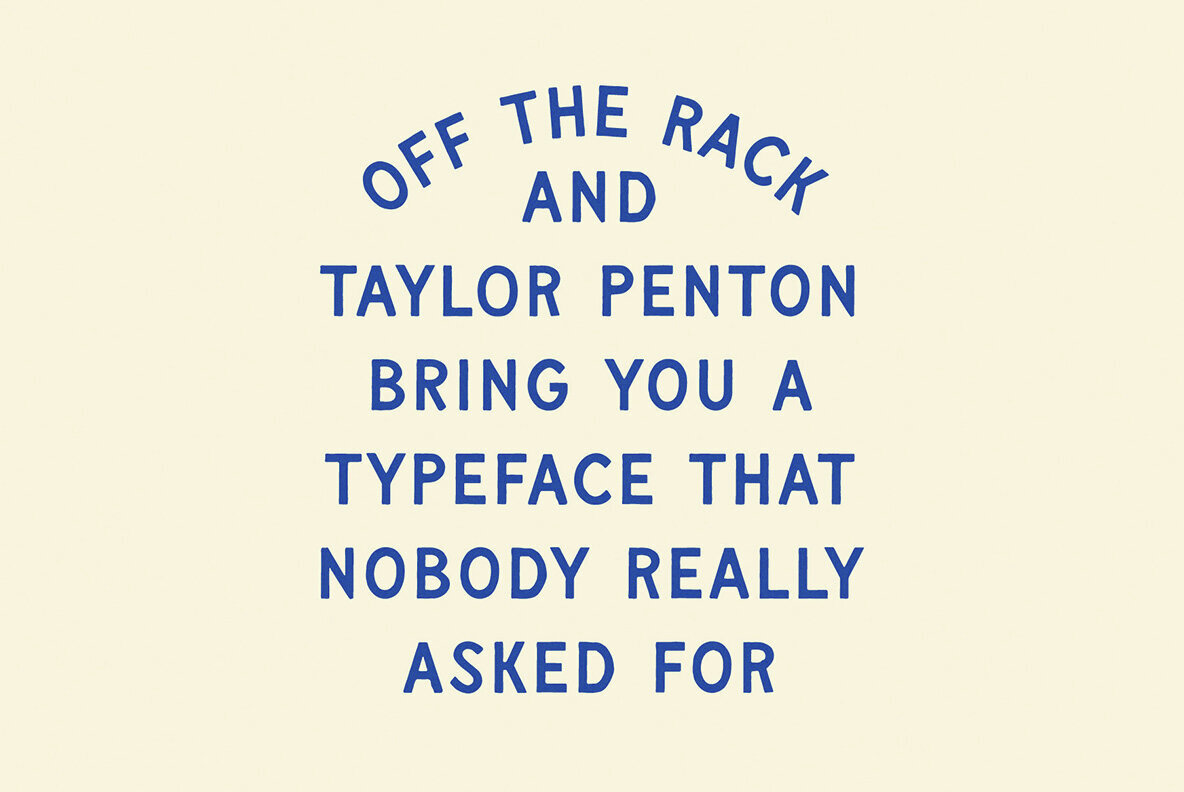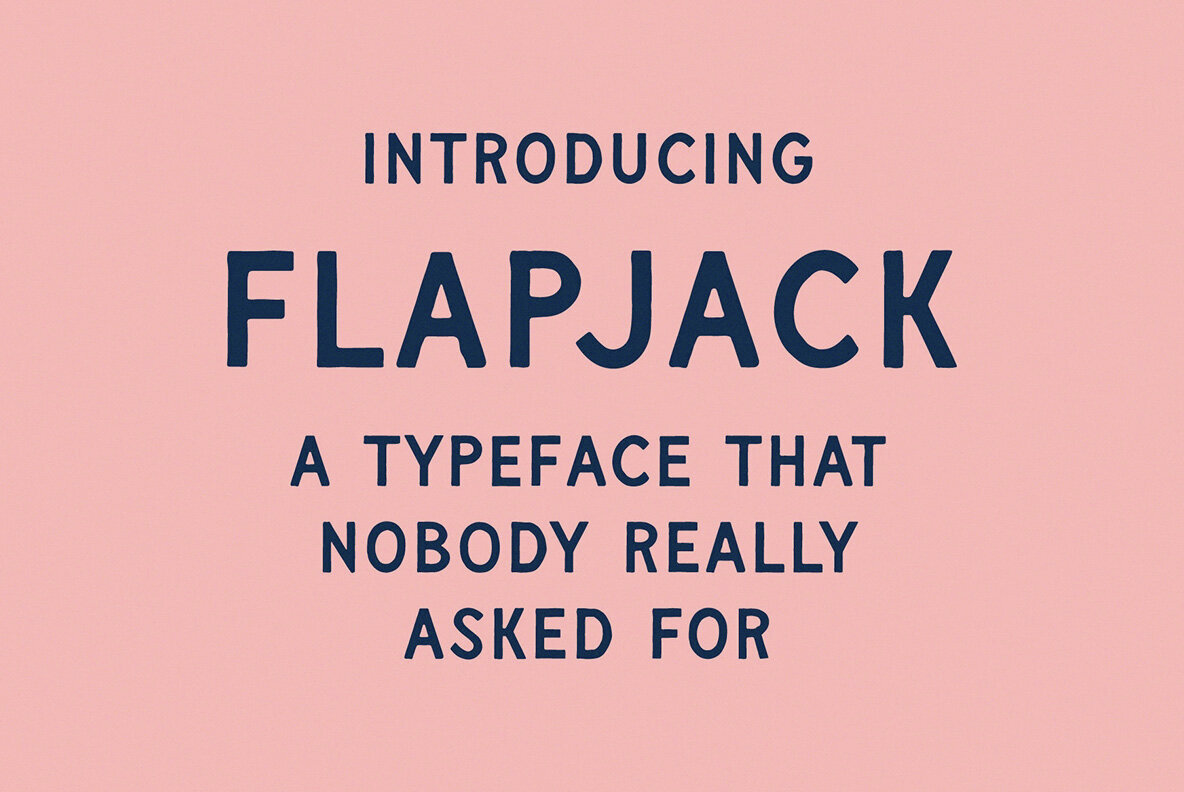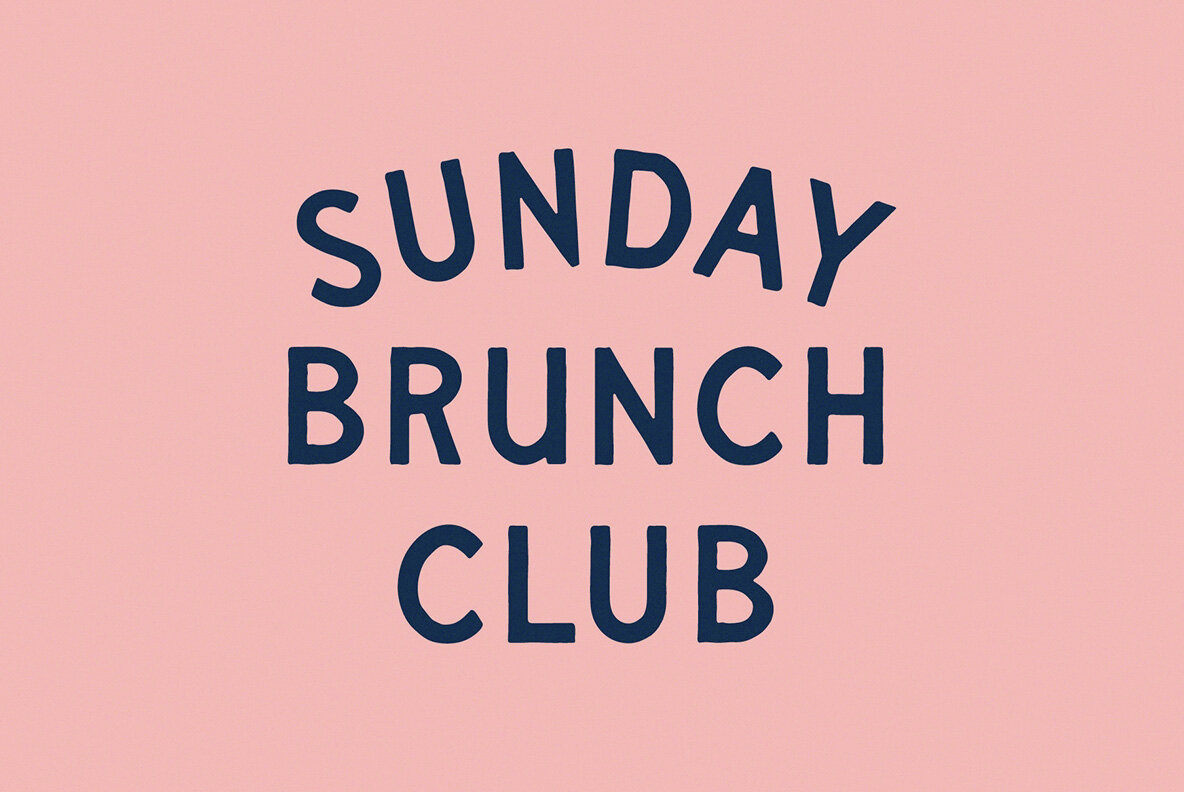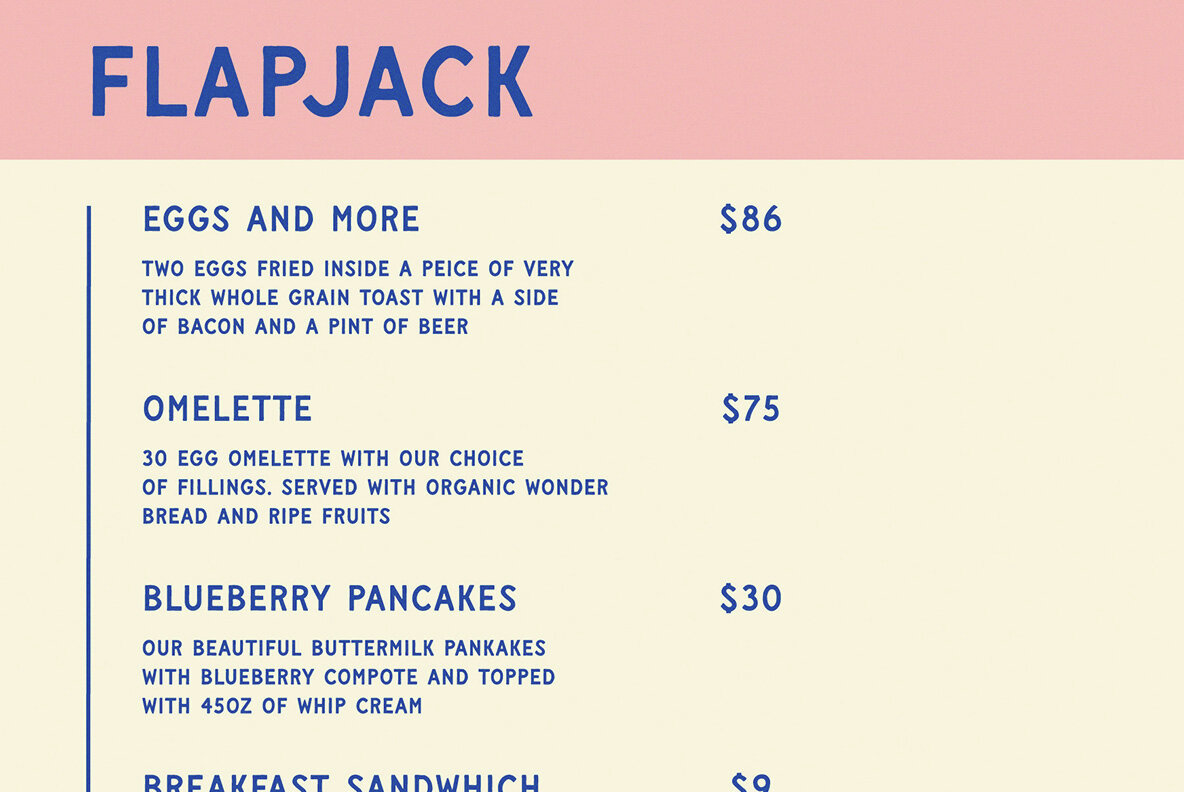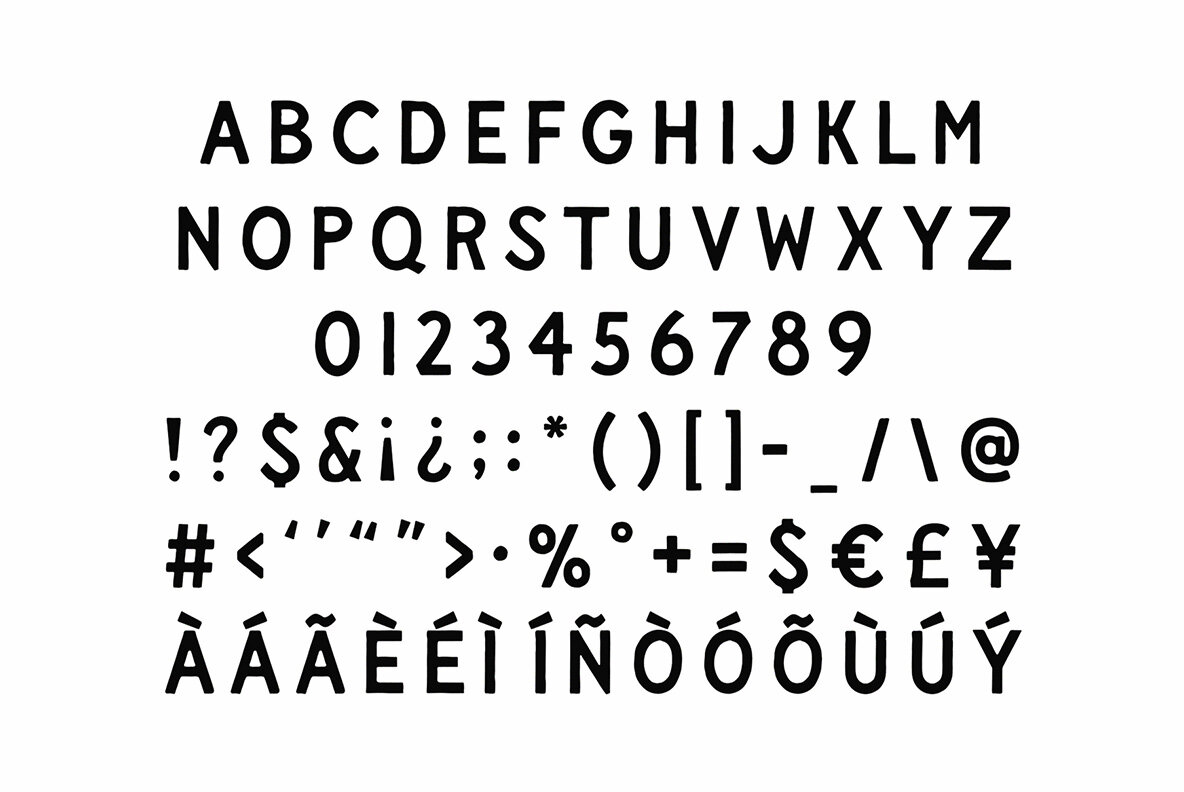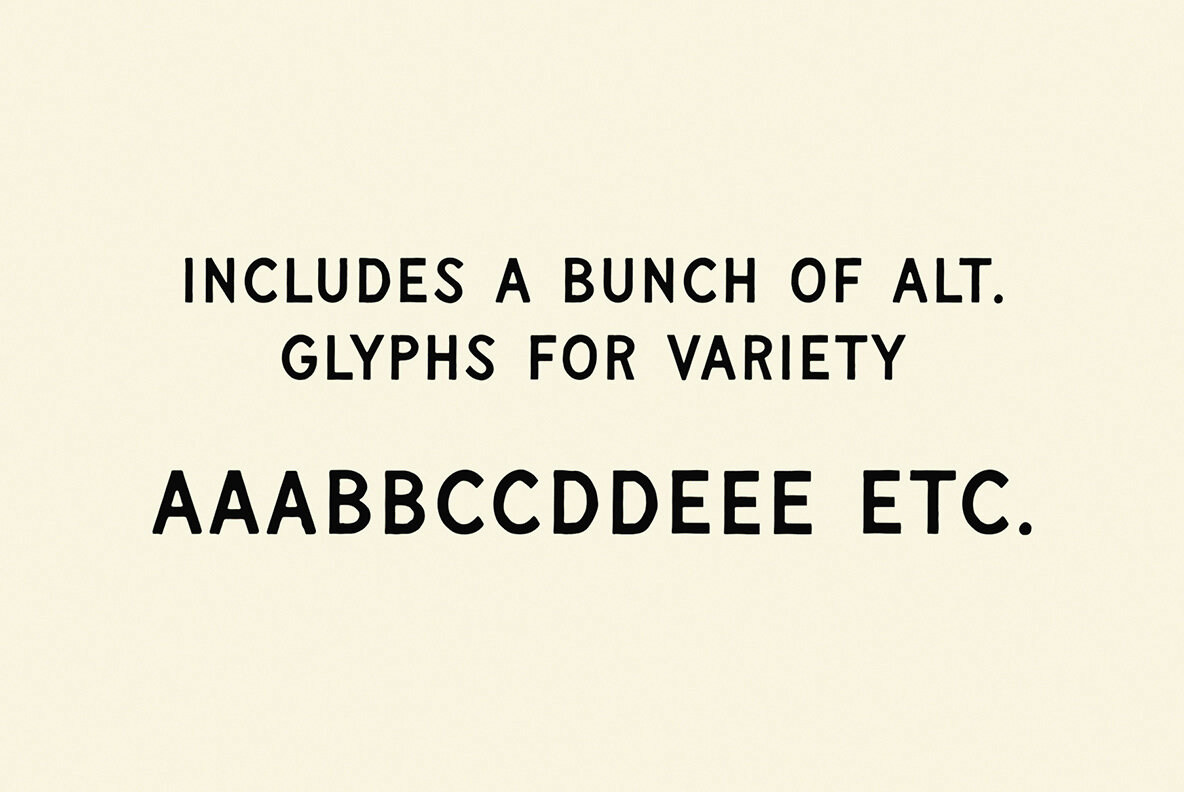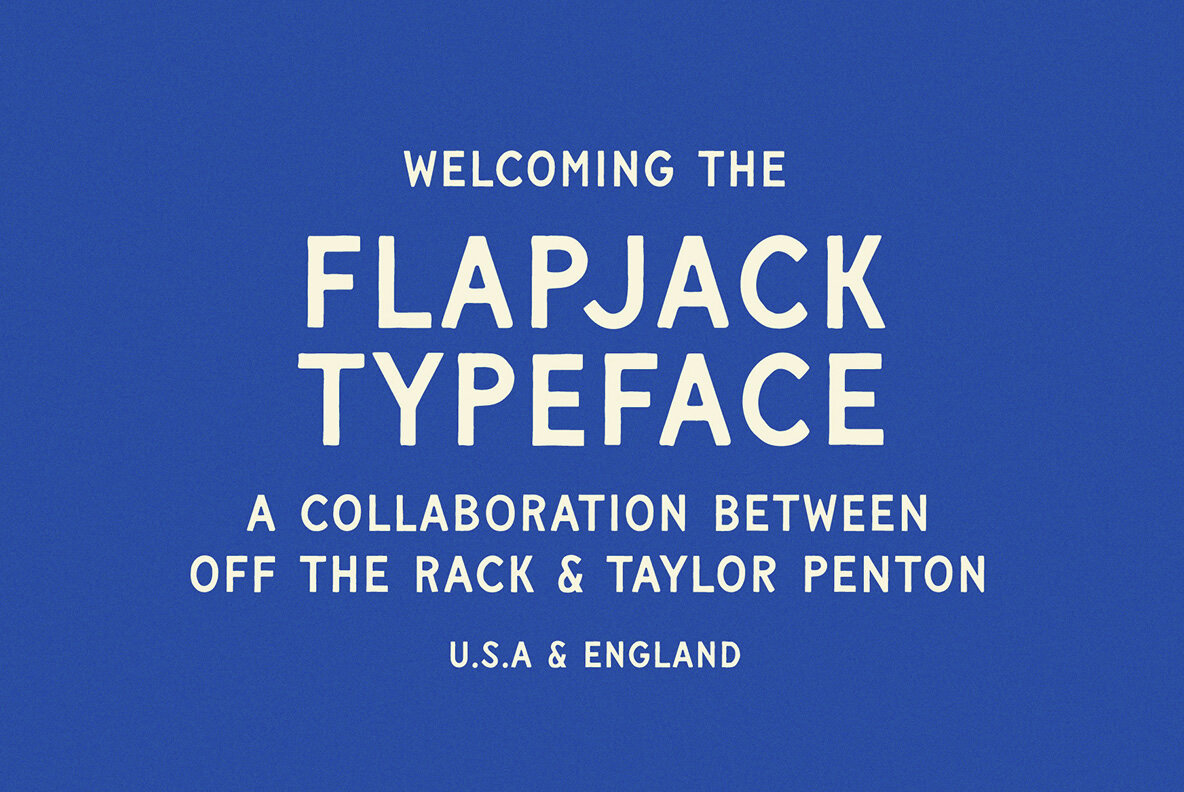
Flapjack Font
OTR Flapjack Regular
A collaboration between Off The Rack and Taylor Penton 🤠Flapjack is a vintage-inspired hand drawn font, referencing old shop signs and painted billboards of the early 20th century. In the same spirit as those early sign-writers, we drew each letter lovingly by hand… before chopping them up to make something you can use and abuse (we won’t even be mad if you stretch our fonts, promise) We’d probably use Flapjack for logos, merch, or anywhere else you might look to inject a bit of vintage flare into a contemporary brand. But if you really want to use it to type up your aging aunt’s pet store logo, we won’t judge (anymore than we usually do). Flapjack is incredibly versatile, functioning equally as comfortably on a 20ft billboard as it might in the fine print on a cafe menu ï¸ Contains uppercase characters, alternative glyphs, punctuation, digits and linguistic support for over 50 languages